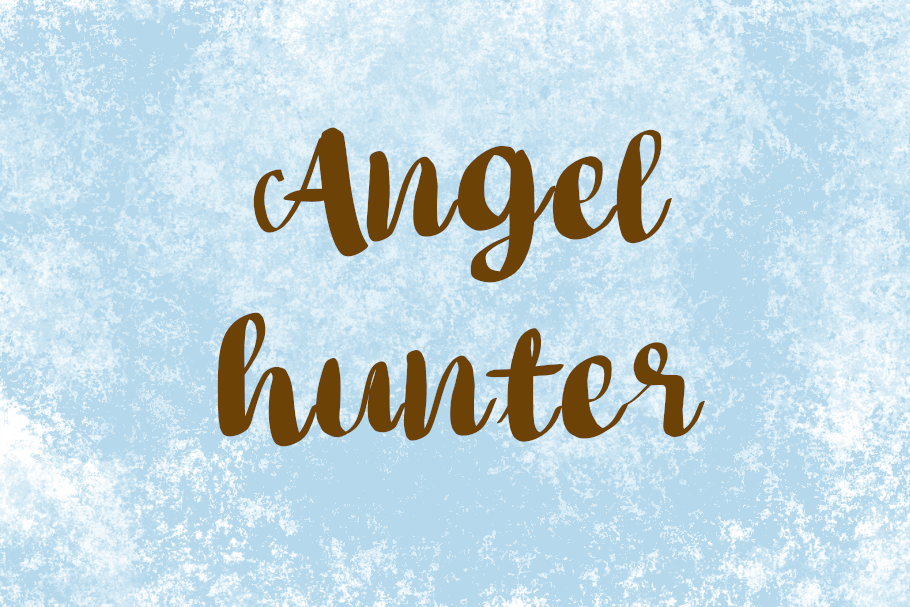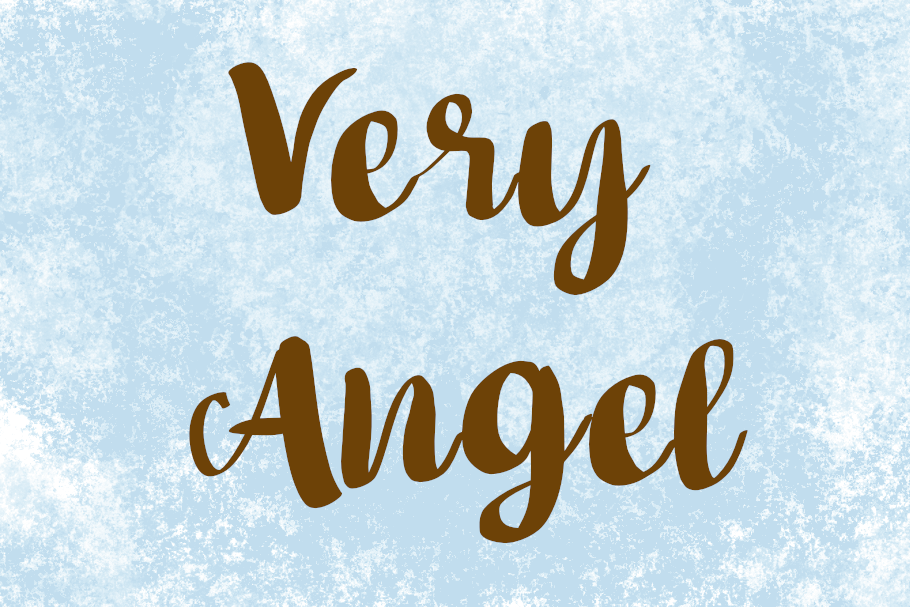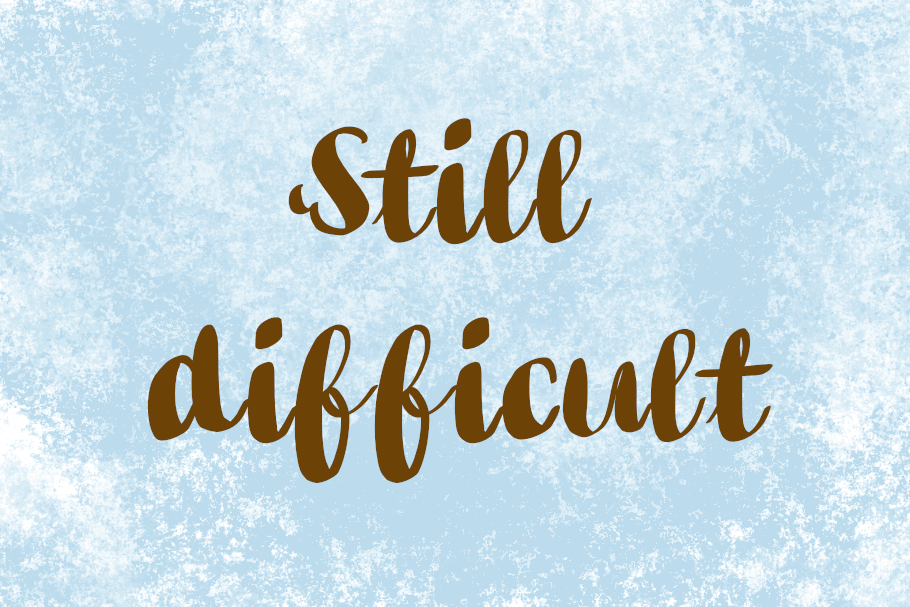
Angel Hunter script is a fun and lovely font with a unique symbol in each glyph font. This font is the perfect fit for all of your logos, branding, social media, and many others